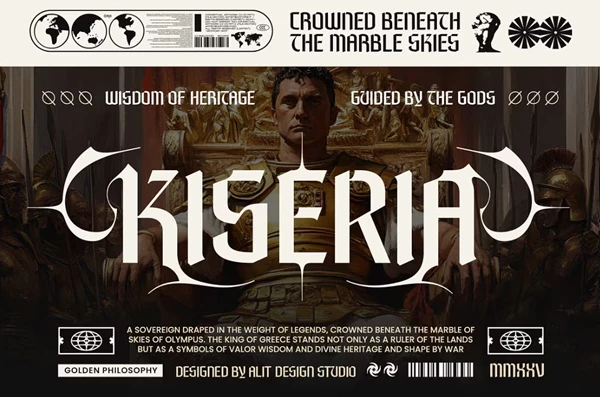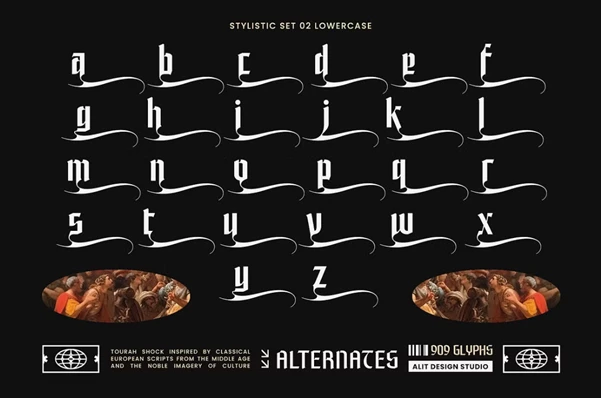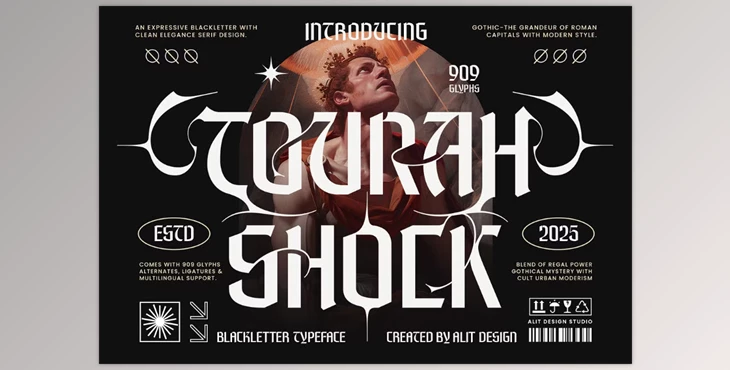
Tourah Shock Typeface:
Torah Shock lands where old stone temples meet bold tomorrow, mixing learned elegance with the bravado of a modern street scene. Rooted in Gothic Roma capitals, city-legend tags, and ritual tribal gear, it turns letter art into a fresh, practical typeface. Sharp tips, bright-dark lines, and stray curls feed a mood that feels both rite and sci-fi. Extra accents and alternate forms read like faded runes, lending the work a spellbinding weight for film, fashion, or any sound-driven vision.
Includes
- Torah Shock ships with 909 carefully crafted glyphs, covering:
- Uppercase and lowercase letters
- A wide range of ligatures plus stylistic alternates so every pair feels fresh
- Multilingual sets for all Latin-based tongues
- Full punctuation, numbers, and handy symbols
- A playful mix of sharp black-letter spikes, sleek modern serifs, and free-flowing swashes
- Fine-tuned for display use, it makes headlines pop on posters, packages, and book jackets
Ideal Applications
- Torah Shock shines in jobs that need drama, depth, and a hint of mystery, including:
- Album covers for metal, hip-hop, darkwave, or any genre that leans dark
- Fashion labels and luxe editorial spreads
- Video game titles, fantasy novels, and cinematic one-sheets
- Ritual branding, tattoos, and artwork for the gothic scene
- High-end streetwear, mystic boxes, and esoteric curios
Typeface Character
- Bold and ornate, backed by crisp, balanced serifs
- Expressive and slightly arcane, grounded in gothic and tribal roots
- Urban yet regal, straddling head-turning confidence and quiet elegance